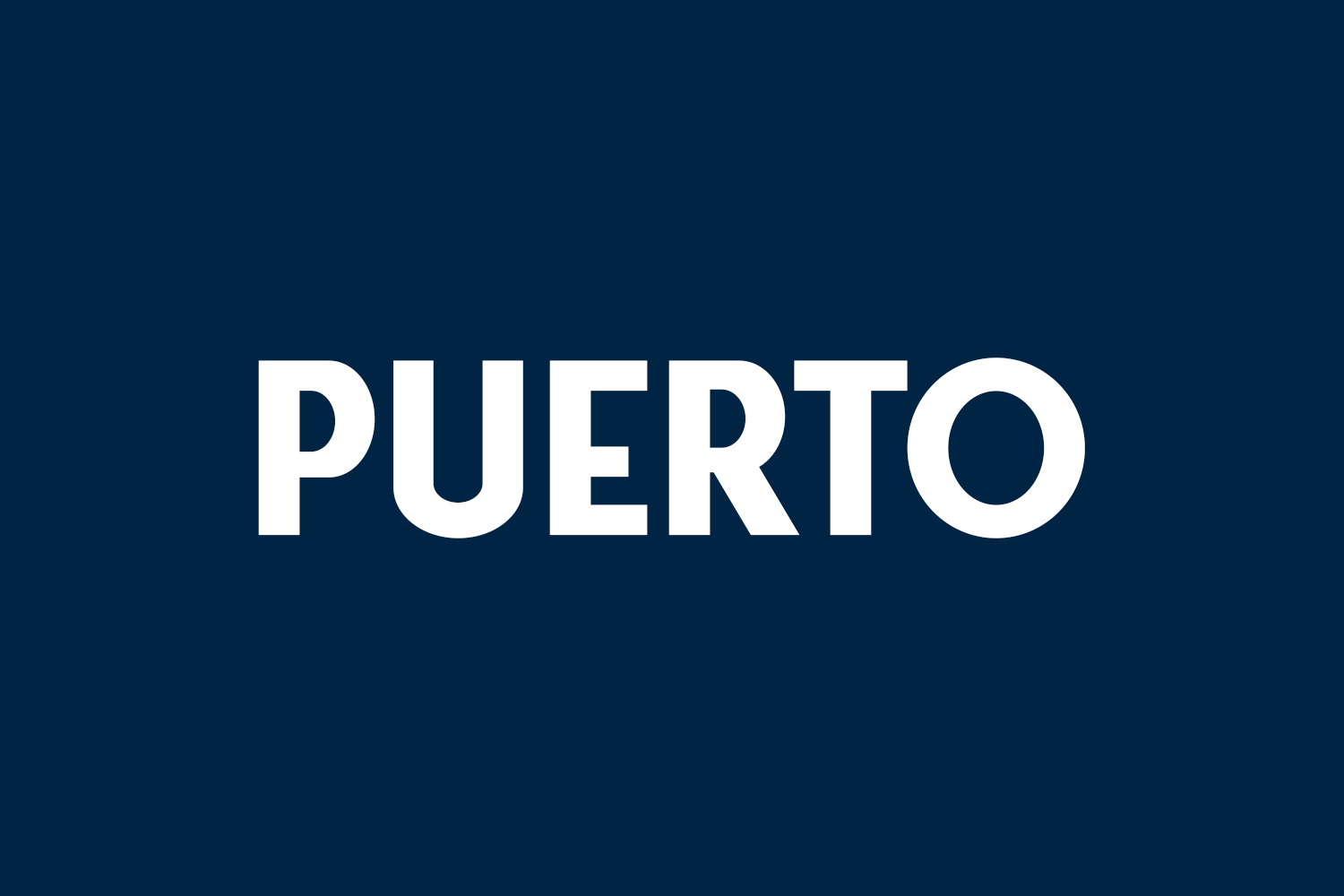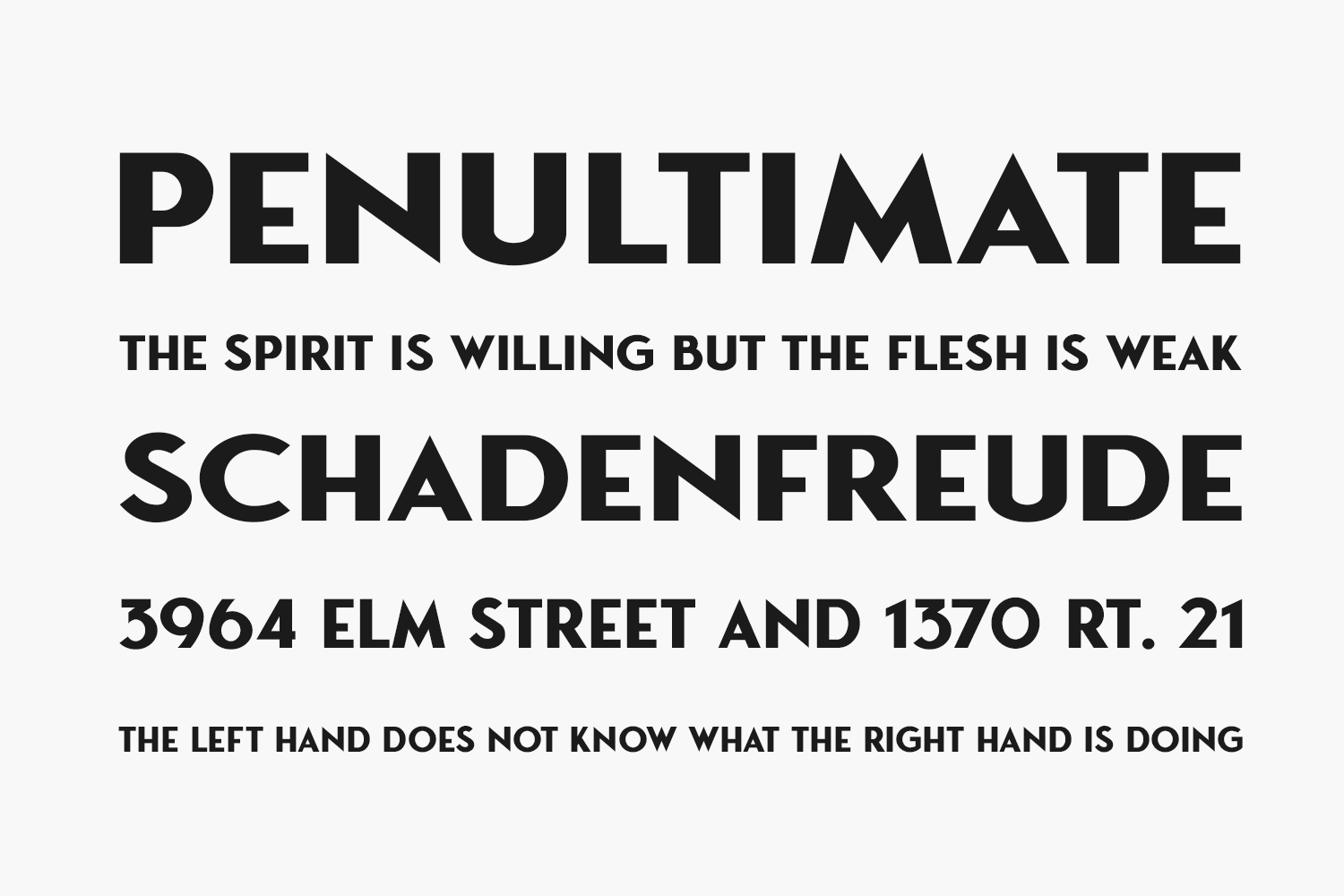
Introducing Puerto Free Font, a display font with bold and retro styling that brings a touch of nostalgia to your designs. Featuring simple and chunky lettering, this font has the power to transform your creative ideas into something truly marvelous. Infuse your projects with the vibrant energy of Puerto and witness the magic as it brings them to life. Elevate your designs with this standout font and make a lasting impression with its bold and distinctive character. Download the font for free if you need it for personal use or purchase the full version for commercial use.
Designed by Don Marciano